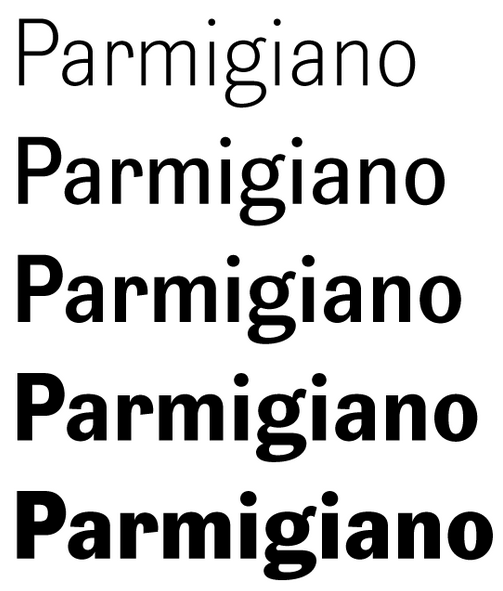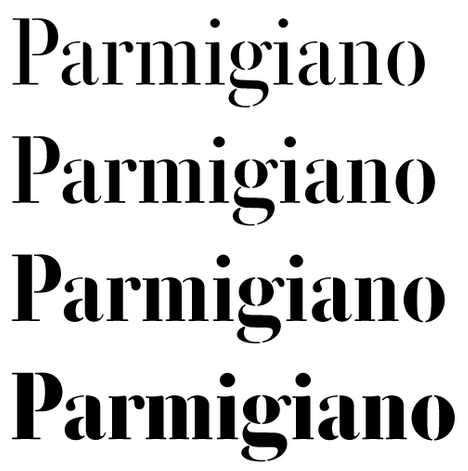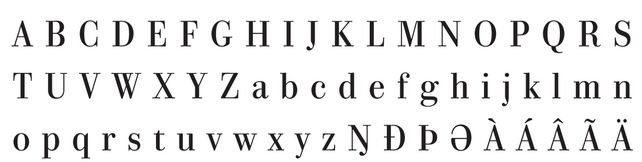
Jonathan Pierini
Type and graphic designer from Italy, who he holds a BA in graphic design and visual communication from the ISIA Urbino and an MA in Type and Media from the Royal Academy of Arts (KABK) in 2008 in Den Haag, The Netherlands. He has worked for private companies, and has been teaching and tutoring in different Universities in Italy. He is currently working at the Free University of Bozen Bolzano, Italy. Since 2011 he has been running the ISIA Urbino Type design Week summer program. More recently, he had a stint with Dalton Maag.
He created the Vasinto Sans family as a student at KABK.
In 2013 Bistro Studio designed a new identity and typeface concept for Mediterranea 16. Implementation done by Jonathan Pierini.
Together with Riccardo Olocco, Jonathan Pierini reinterpreted Bodoni's work in 2014. Their Parmigiano Typographic System, which is named after Parma, the city where Giambattista Bodoni (d. 1813) established his printing house, attempts to revive, interpret and boldly extend Bodoni's work. There is not a single official original Bodoni---Bodoni's Manuale Tipografico contains many slightly different examples---, and so, the first challenge was to create coherent relationships between various optical sizes (Piccolo, Caption, Text, Headline) and weights. Besides the Parmigiano Serif family, Olocco and Pierini also developed the creative extension Parmigiano Sans. There are also Stencil, Typewriter, Egyptian styles, to name a few. The Parmigiano Typographic System was published in 2014 by Typotheque, but was developed a few years before that.
In 2014, Leonardo Sonnoli and Jonathan Pierini developed the bespoke typeface family Mast for the MAST Foundation in Bologna.
His Ovo typeface (2014) is a restyling of the custom font originally designed for the multifunctional center Ginestra, Fabbrica della Conoscenza based in Montevarchi (Arezzo).